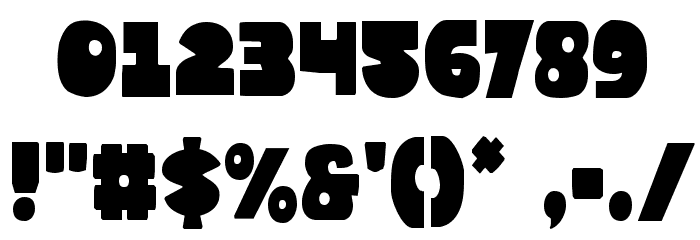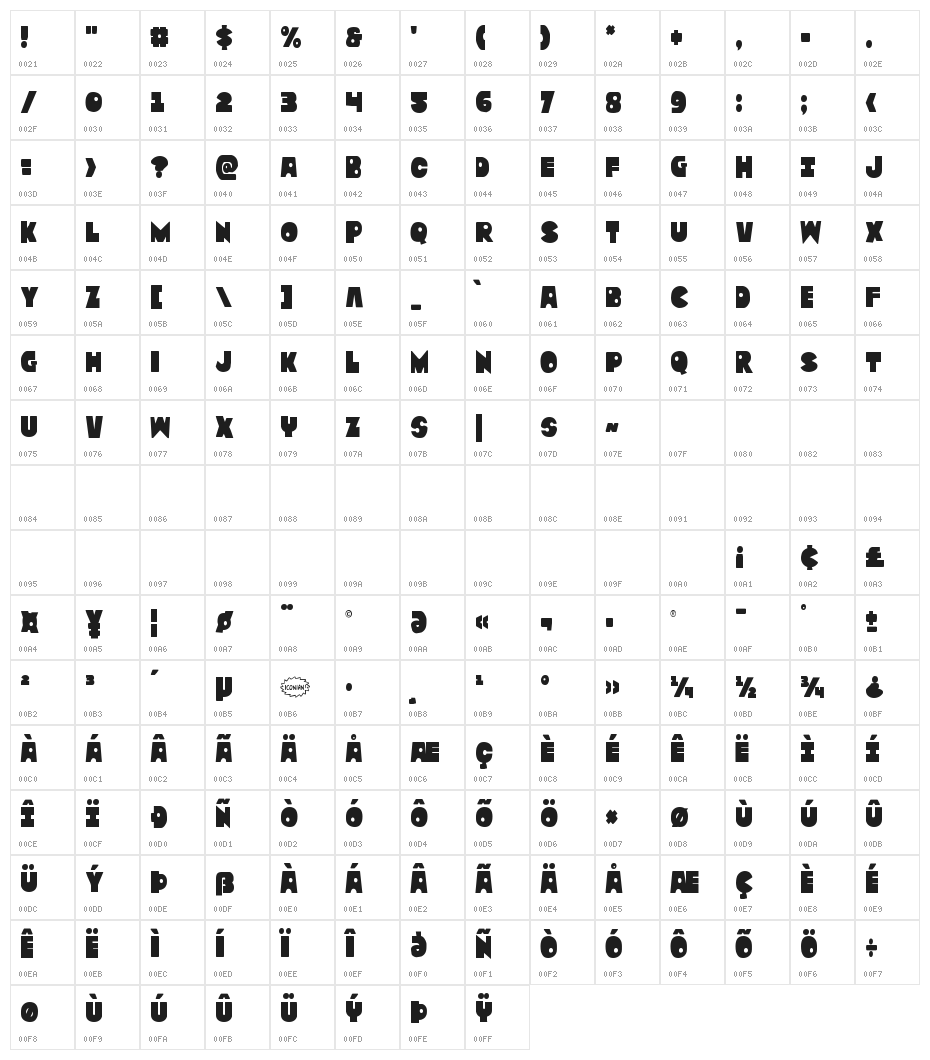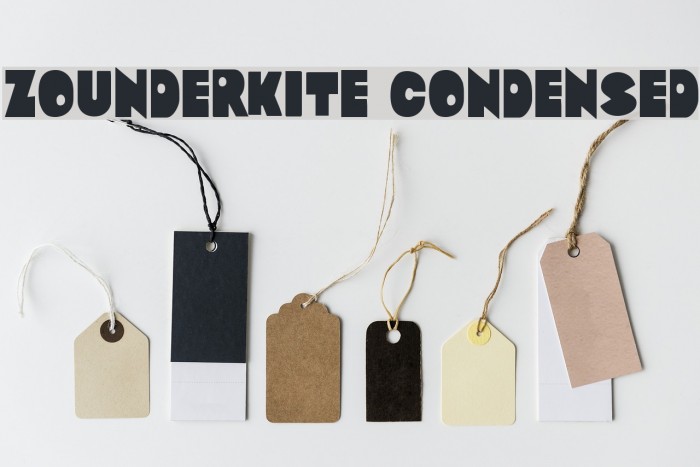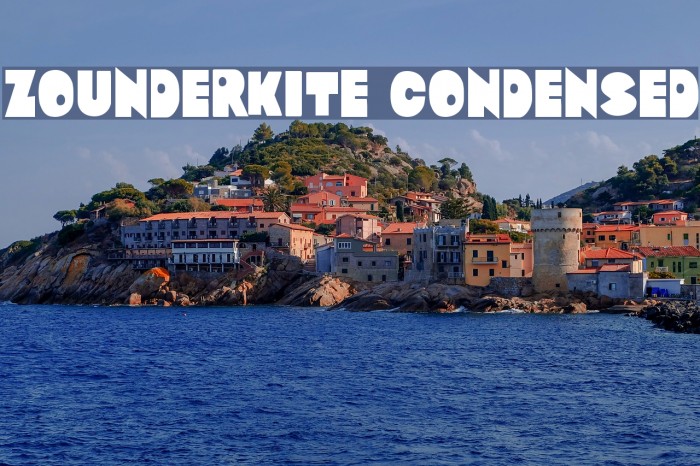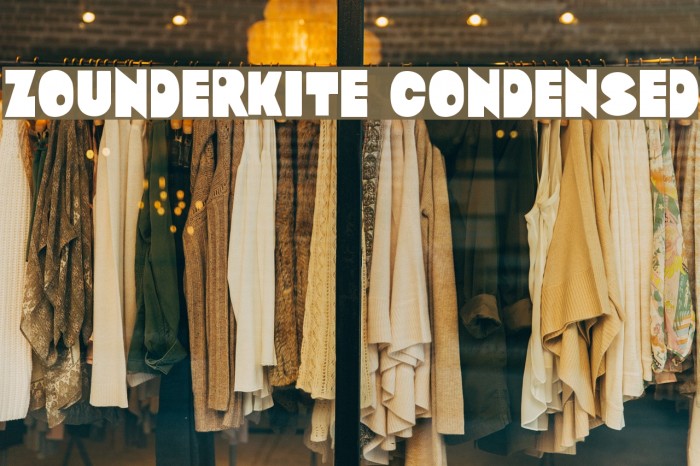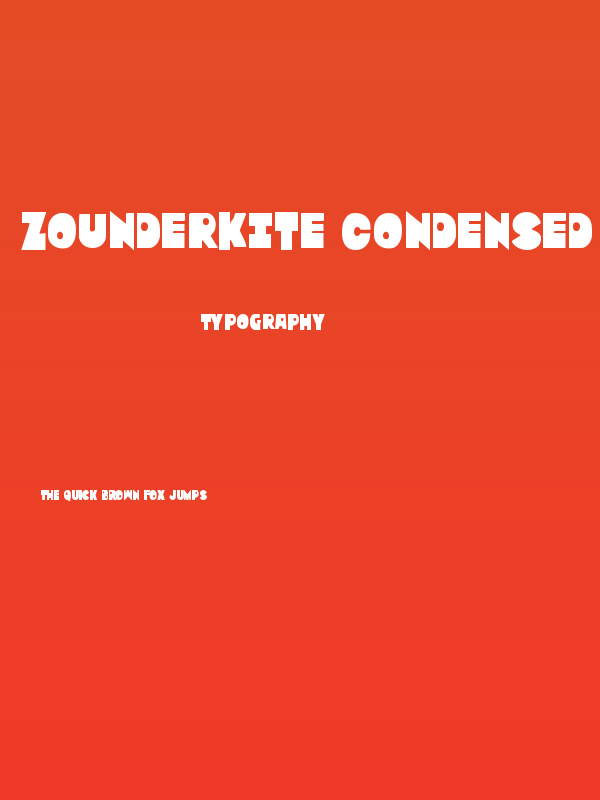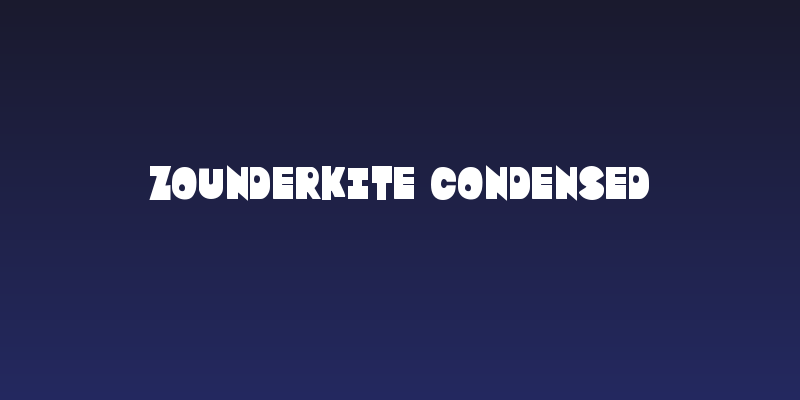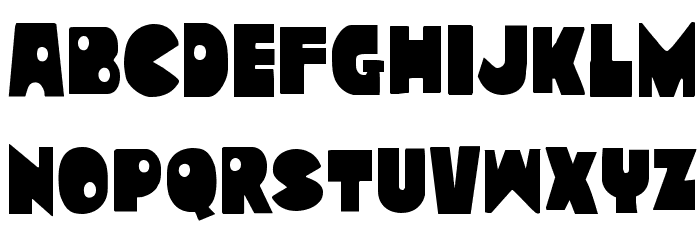
Zounderkite Condensed Font
Zounderkite Condensed Description
This font features a bold, playful design with a condensed structure. The characters are heavily stylized, with thick strokes and minimal contrast, creating a strong visual impact. The letters have a quirky, almost cartoonish appearance, with unique shapes and exaggerated forms that make them stand out. The overall look is modern and eye-catching, suitable for creative and informal applications. The numbers and special characters maintain the same bold and distinctive style, ensuring consistency across all elements.
| Proposed Projects | Ideal for children's books, playful branding, posters, and creative digital media. |